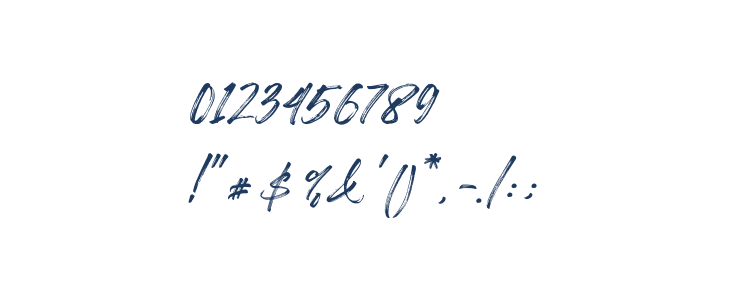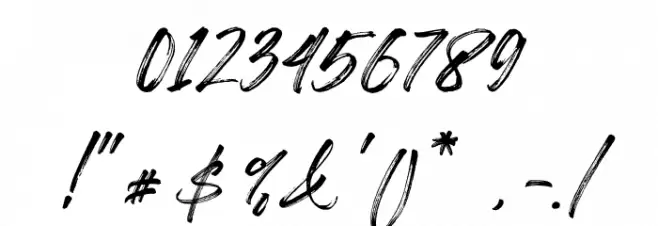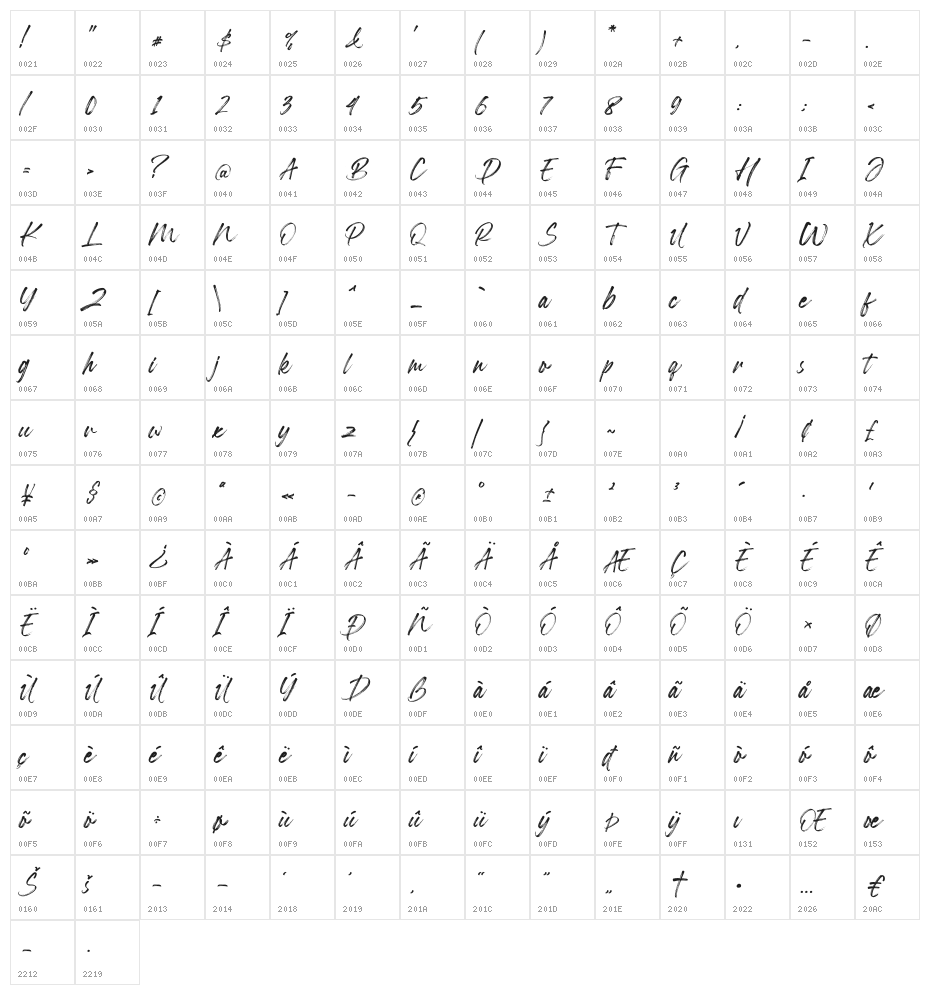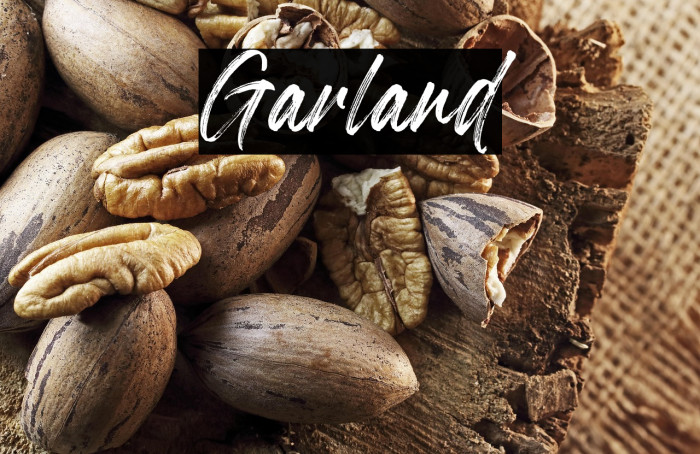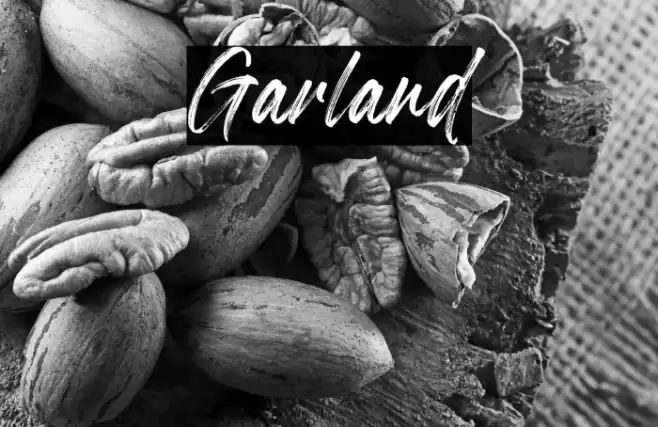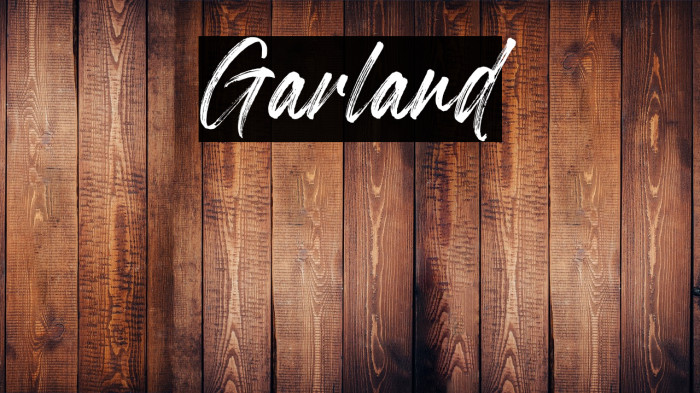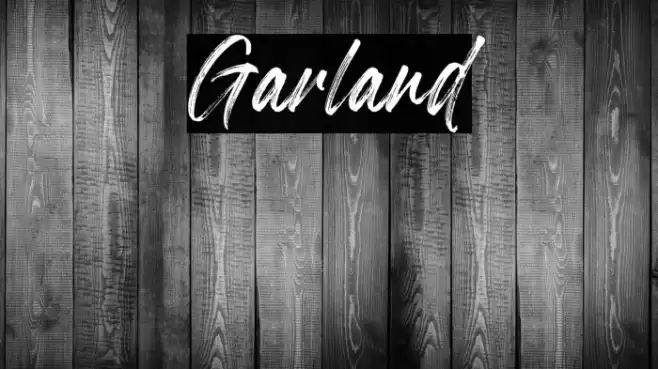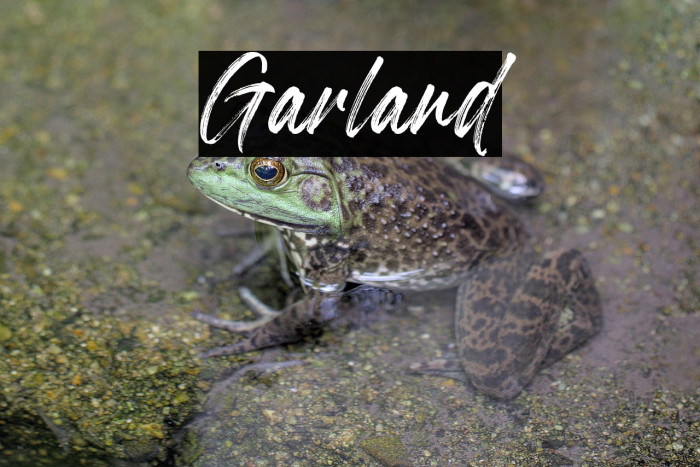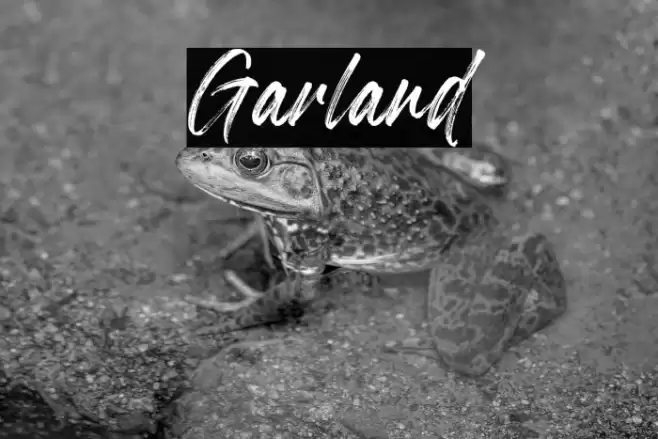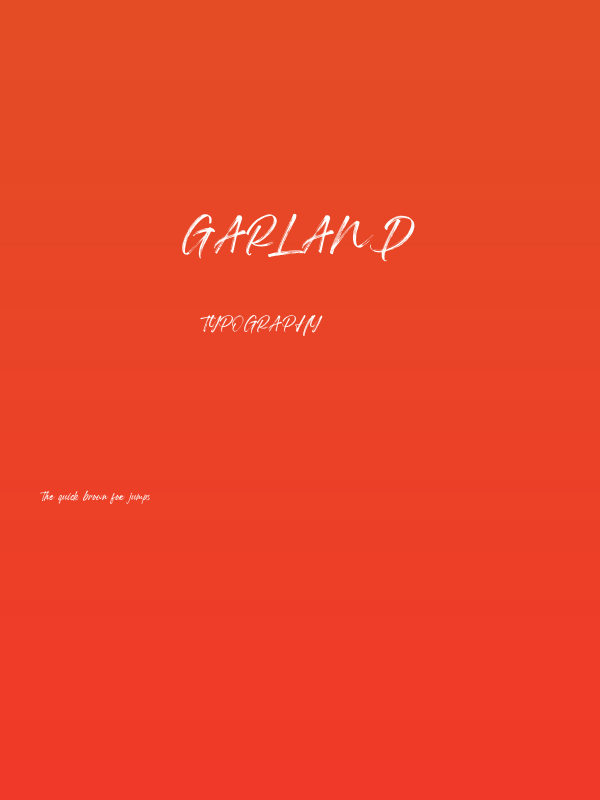
Garland Font
Garland Description
This font features a dynamic and expressive script style, characterized by its fluid and sweeping strokes. The letters are interconnected, creating a sense of motion and elegance. The brush-like texture adds a handcrafted feel, making it ideal for projects that require a personal touch. The uppercase letters are bold and prominent, while the lowercase letters maintain a consistent flow, enhancing readability. Numbers and special characters are designed with the same artistic flair, ensuring a cohesive look across all text elements.
| Proposed Projects | Ideal for wedding invitations, greeting cards, branding, and logo design where a personal and artistic touch is desired. |